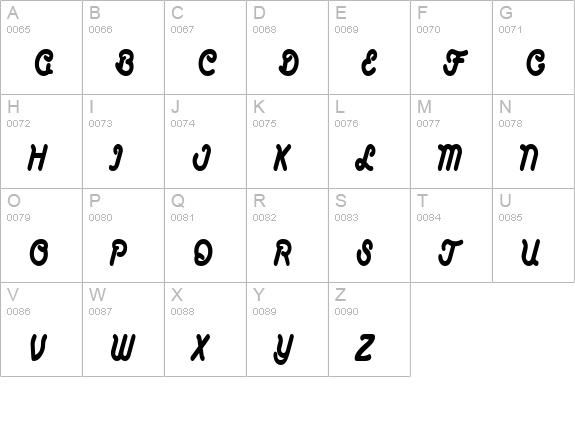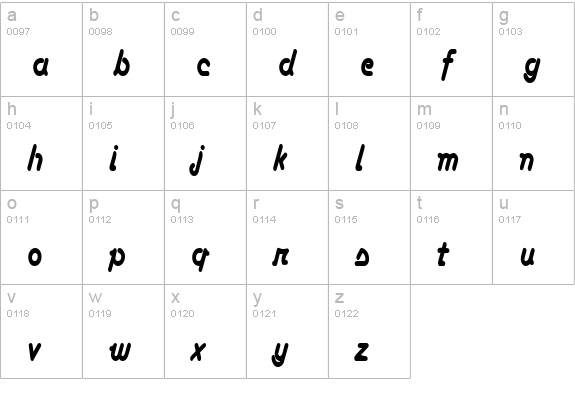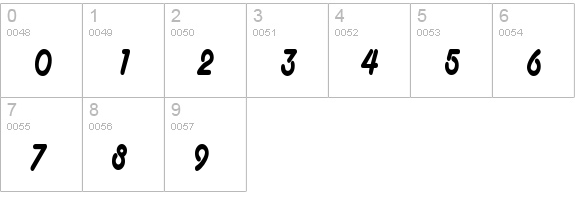
AnacondaCondensed Regular is the standard, neutral variant in the AnacondaCondensed typeface family \xE2\x80\x94 well suited to general body text, paragraphs, and standard typographic work.
AnacondaCondensed Regular font is a sleek and modern typeface that exudes elegance and sophistication. Its condensed design makes it perfect for creating a clean and professional look in various design projects. The balanced letterforms and subtle curves give this font a sense of timelessness and versatility. What sets AnacondaCondensed Regular font apart is not only its stylish appearance but also the fact that it is available for free download at FontsMarket.com. This means that you can easily access this high-quality font without any cost, making it a valuable addition to your font collection. Whether you're designing a logo, poster, website, or any other creative project, AnacondaCondensed Regular font is sure to elevate your design with its unique charm and readability. Download it now and start incorporating this exceptional font into your designs!